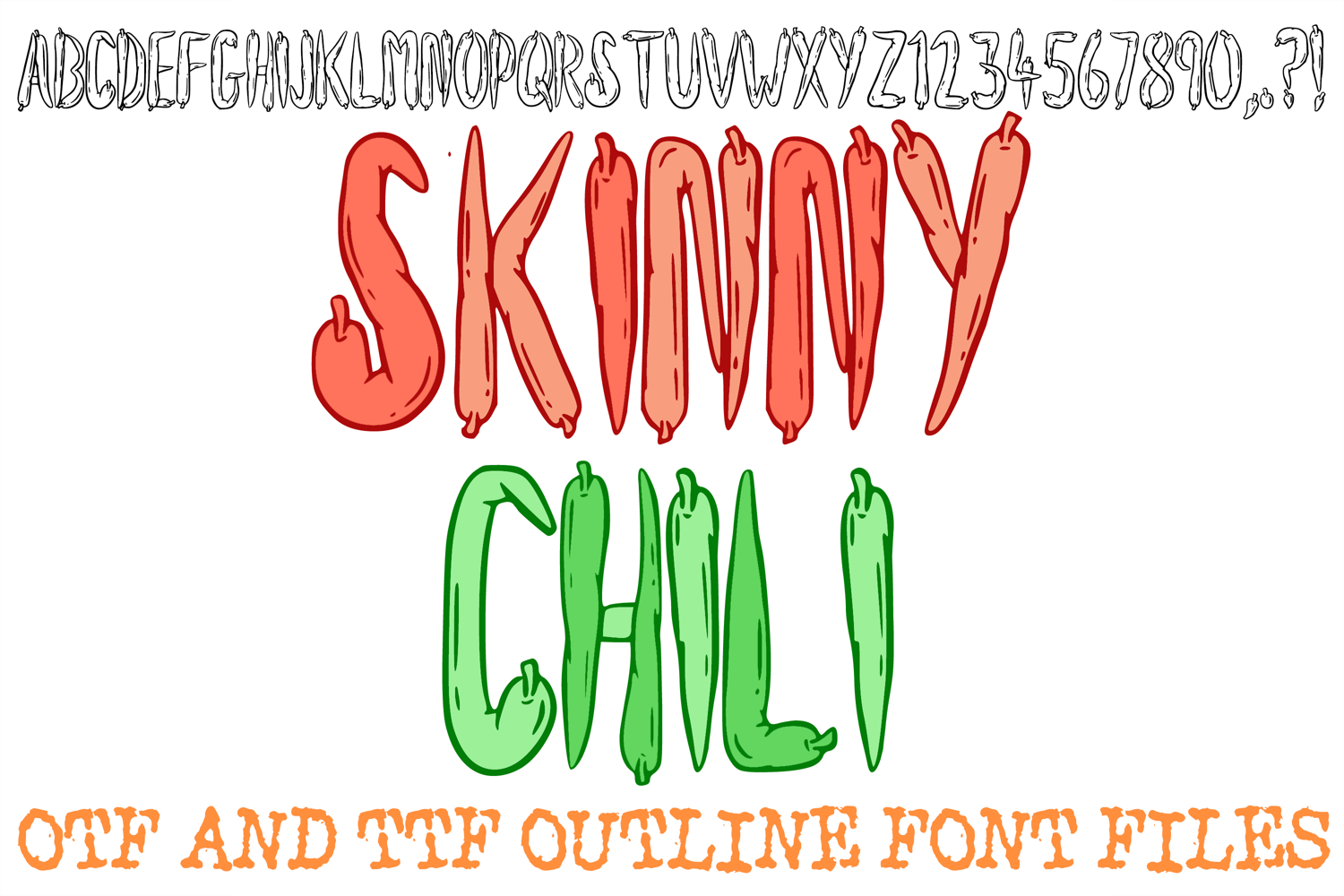
Bring a fiery, flavor-packed kick to your creative layouts with Skinny Chili, a fully installable display font inspired by slender, hand-drawn chili peppers. Featuring tall, condensed letterforms complete with curved pepper bodies, stem tops, and subtle skin texture outlines, this typeface adds a spicy and playful touch to graphic design artwork.
Ideal For:
Food & Kitchen Crafts: Hot sauce labels, recipe books, kitchen wall art, and barbecue party decor.
Events & Celebration: Cinco de Mayo graphics, chili cook-off signage, and summer fiesta invitations.
Apparel & Merch: Culinary t-shirts, chef aprons, tote bags, and spicy food accessories.
Vinyl & Cutting Projects: Craft machine creations, custom decals, print-on-demand layouts, and restaurant stationery.